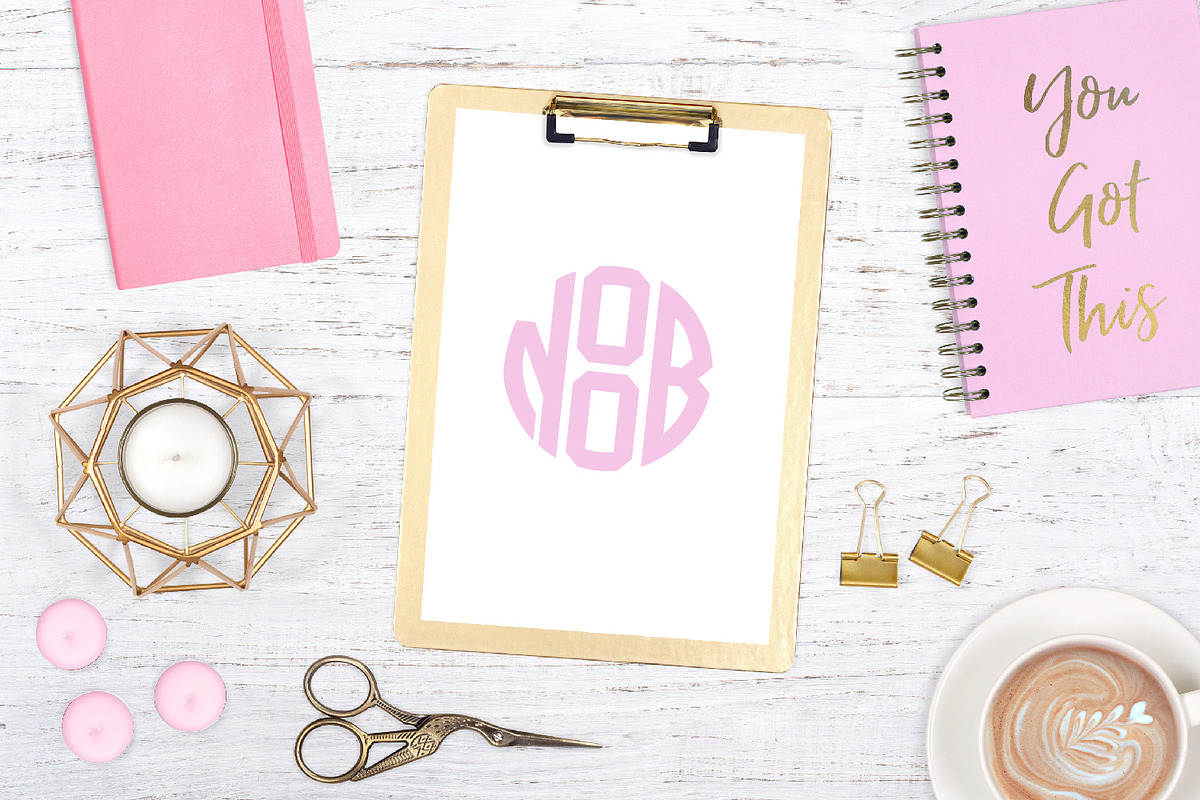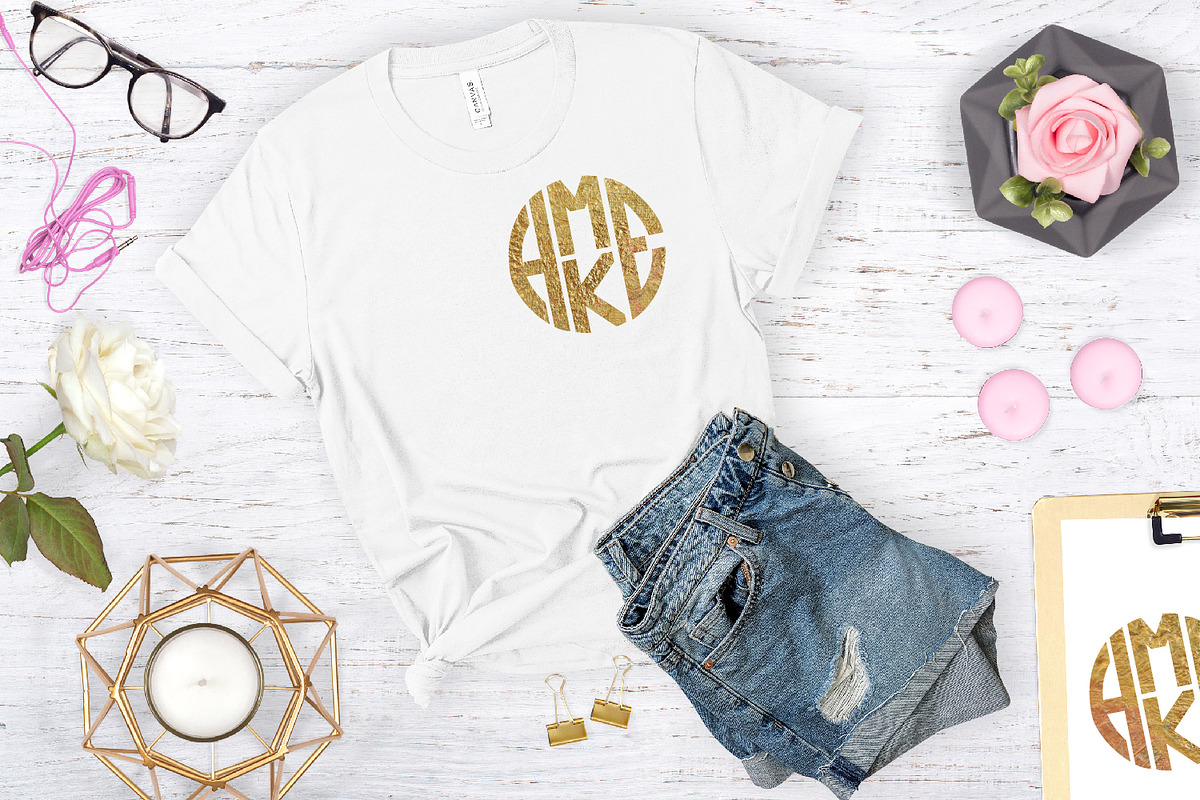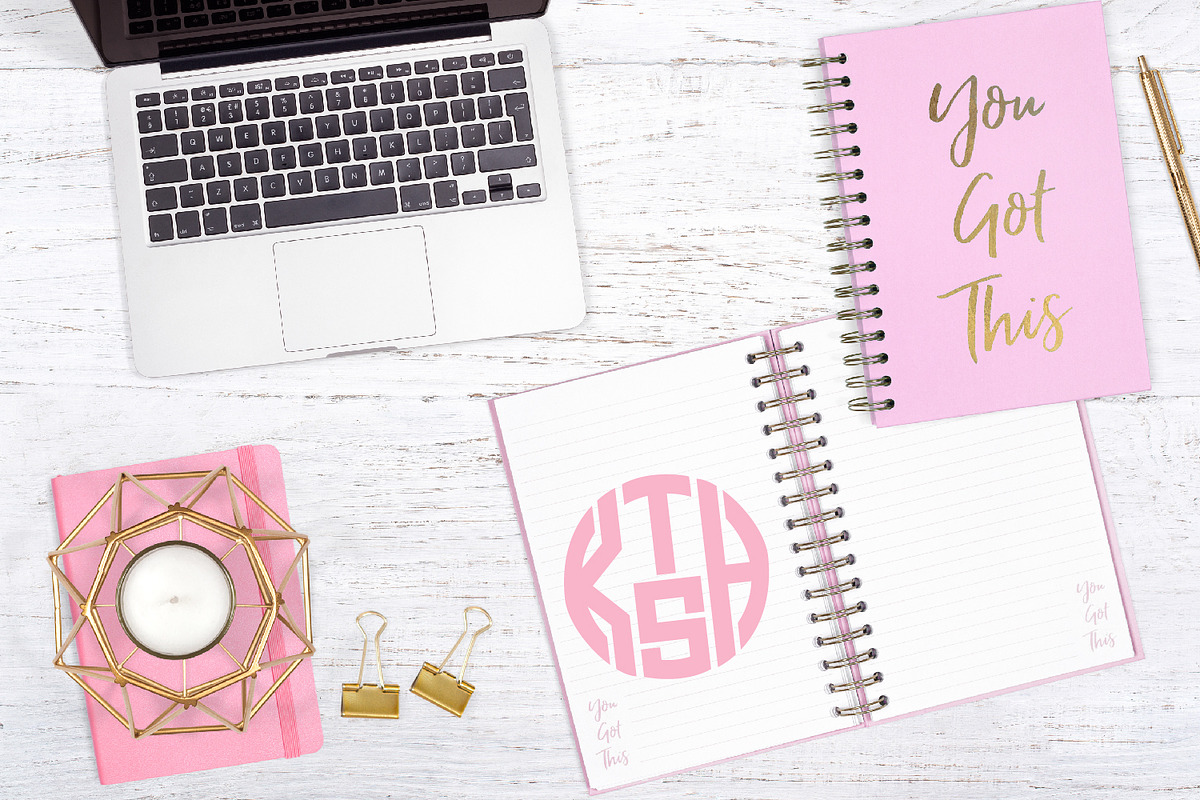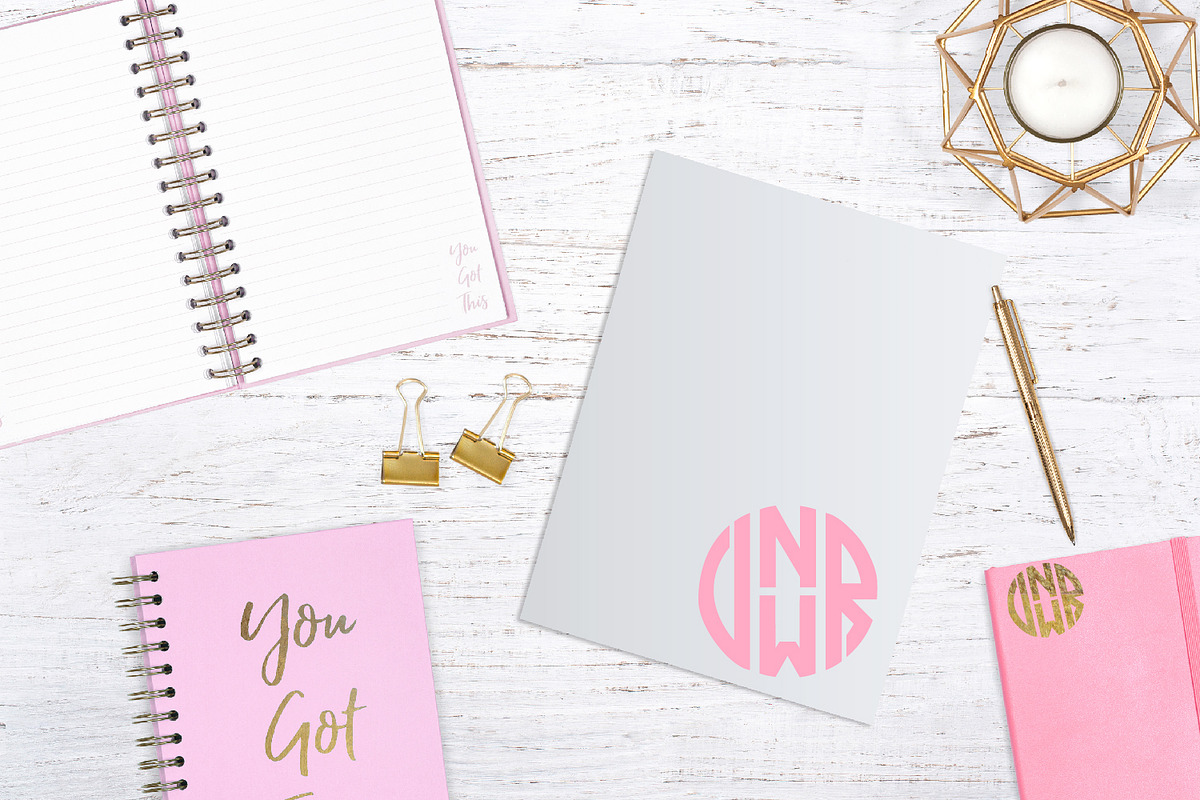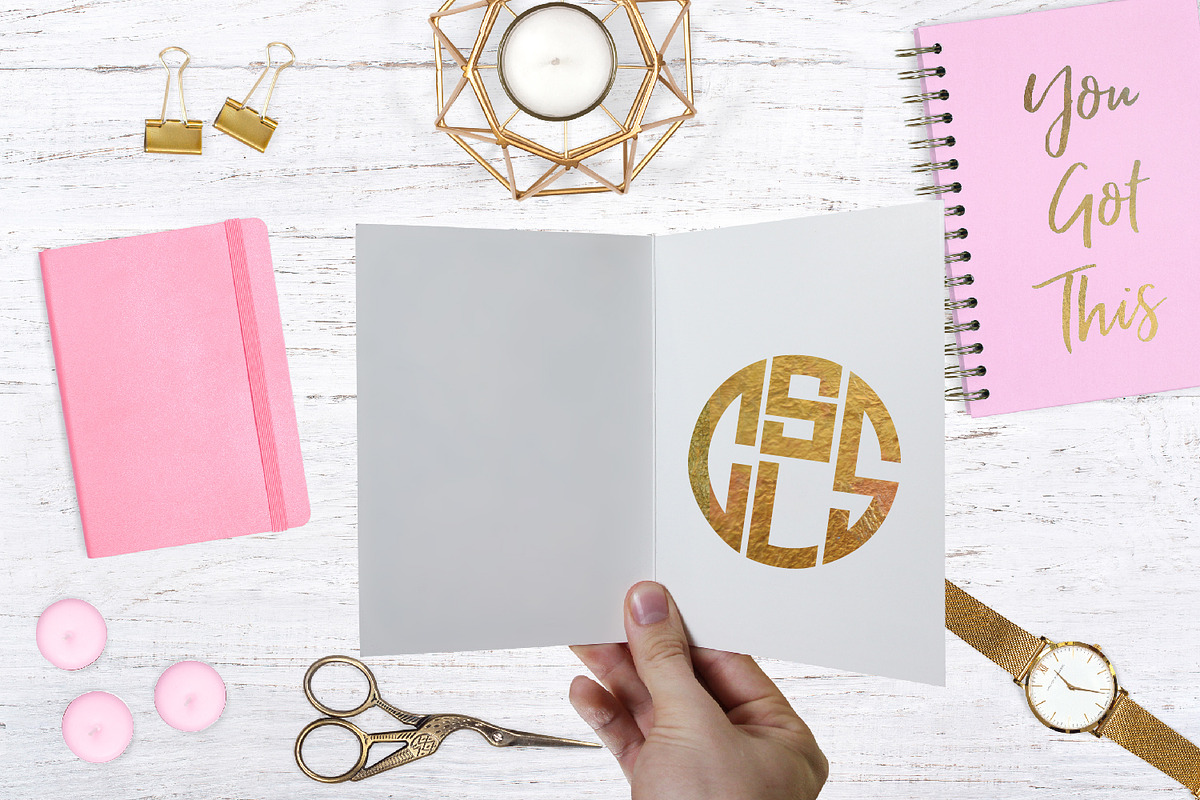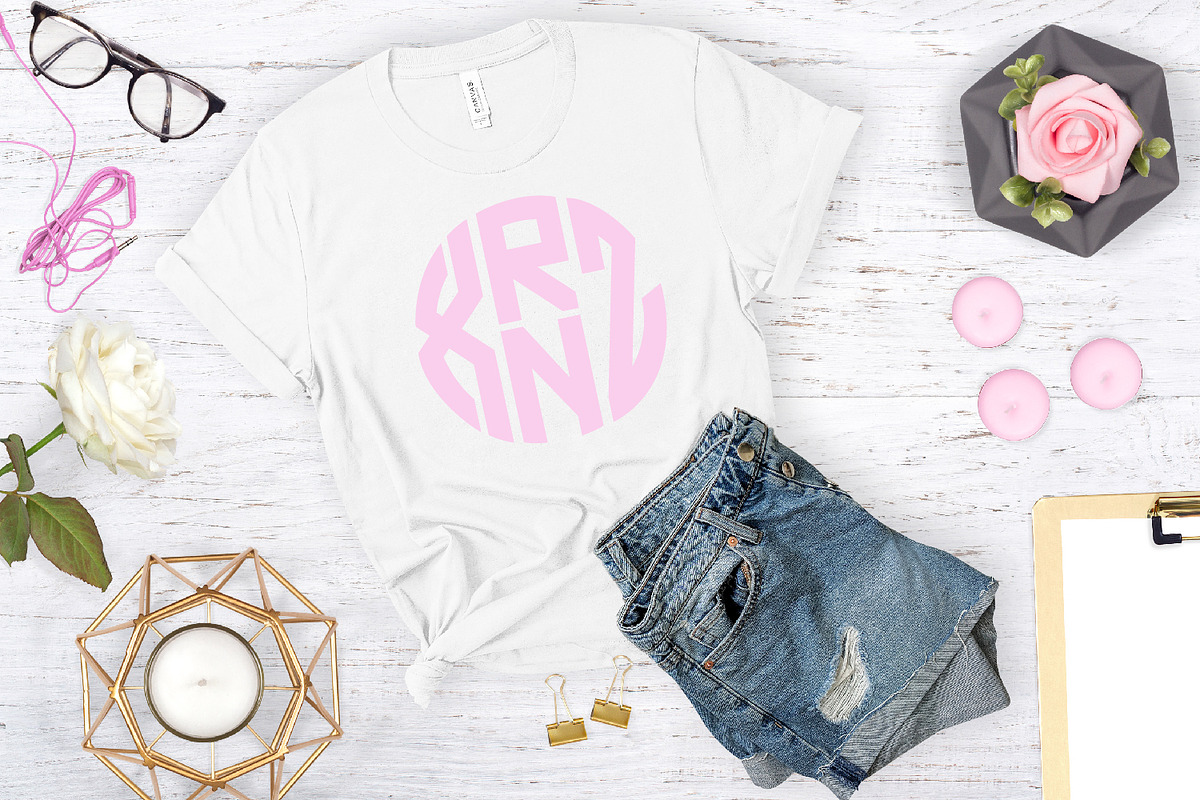
4 Letter Circle Monogram Font & Kit
Why 4 Letter Circle Monogram Font & Kit is worth a look
4 Letter Circle Monogram Font & Kit by CraftyLittleNodes fits naturally into Branding, posters, packaging, typography.